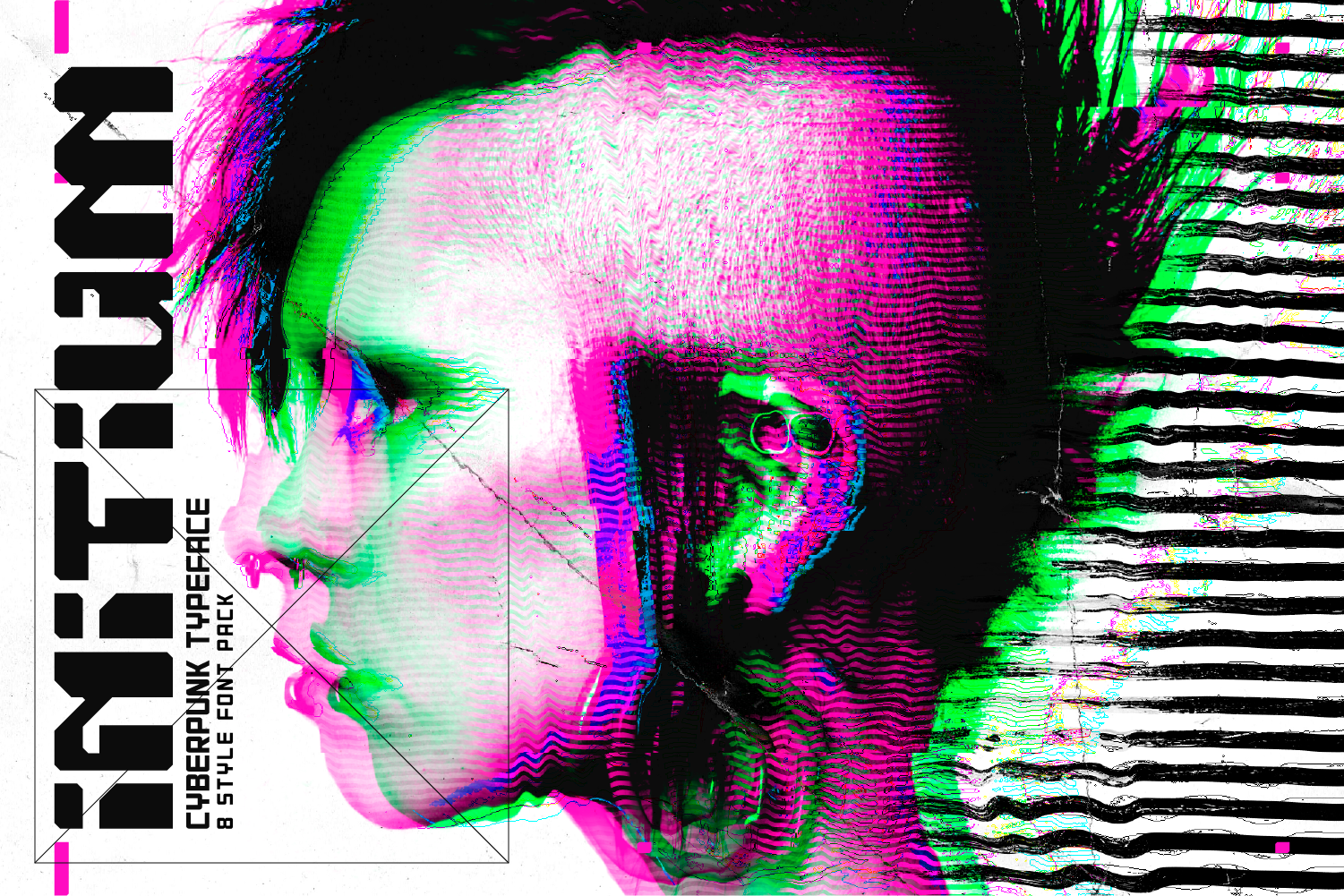
INITIUM Cyberpunk Typeface
INITIUM - Created 2020 - Futuristic Cyberpunk Typeface
"Initium" is a collection of 8 futuristic technical, cyberpunk and distorted typefaces.
Ideal for gaming, streamers, music and movie posters. Initium is created as a bold display typeface with uppercase, lowercase letters, numbers and common symbols.
Usable on its own or combined on multiple layers you can mix together into different effects and when combined with an contrasting body font to create futuristic designs.
Regular / Outline / Galactic / Horizon / Virus / Corrupt / Shift / Glitch